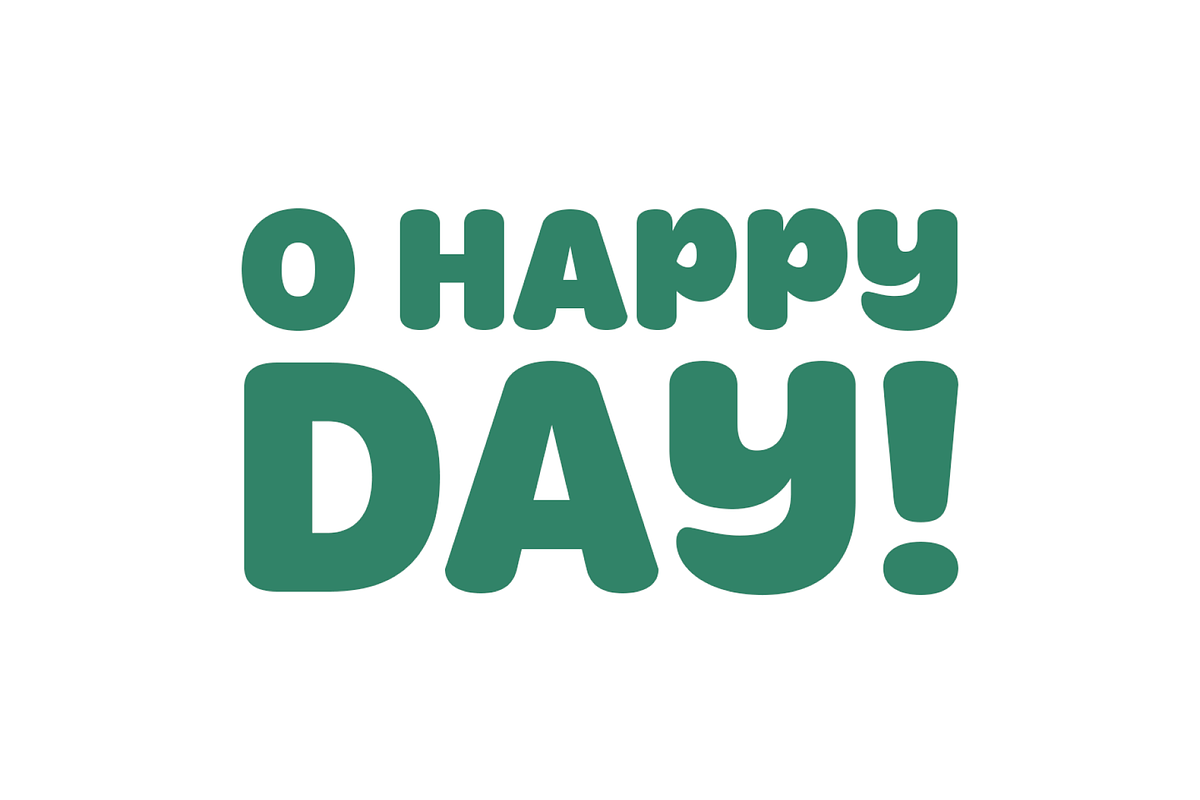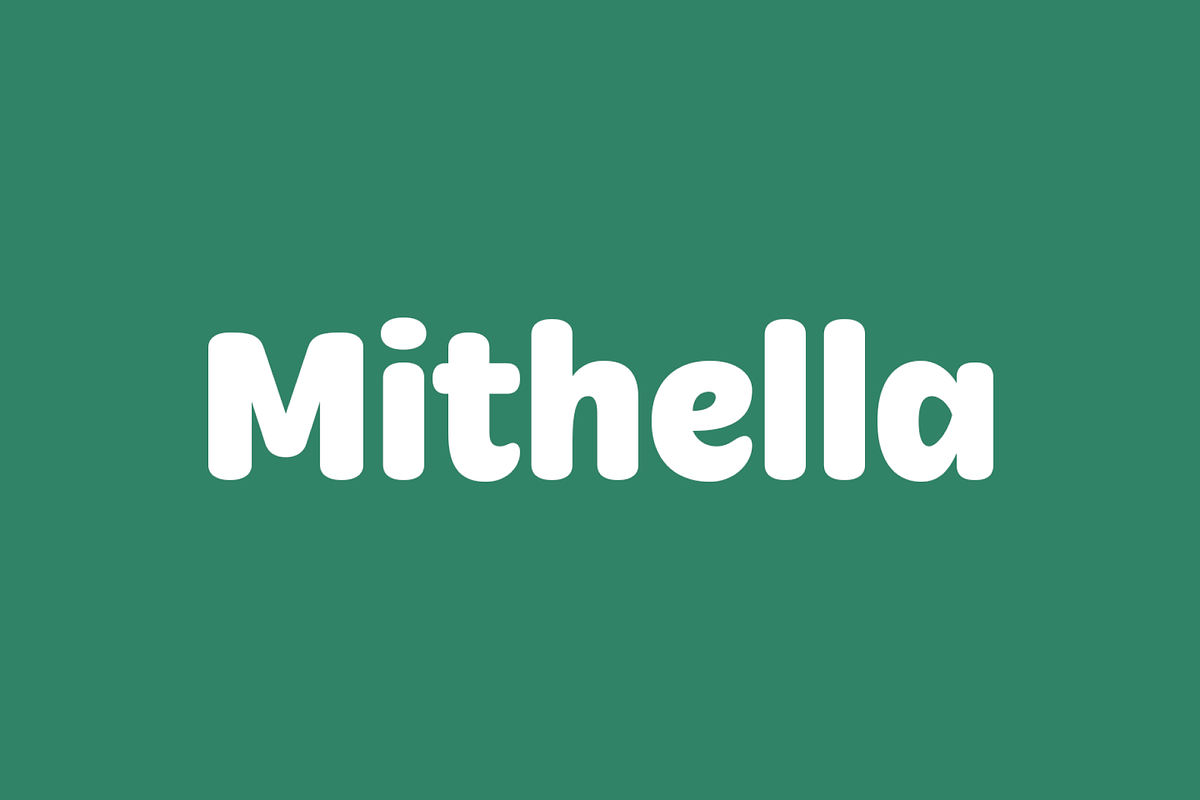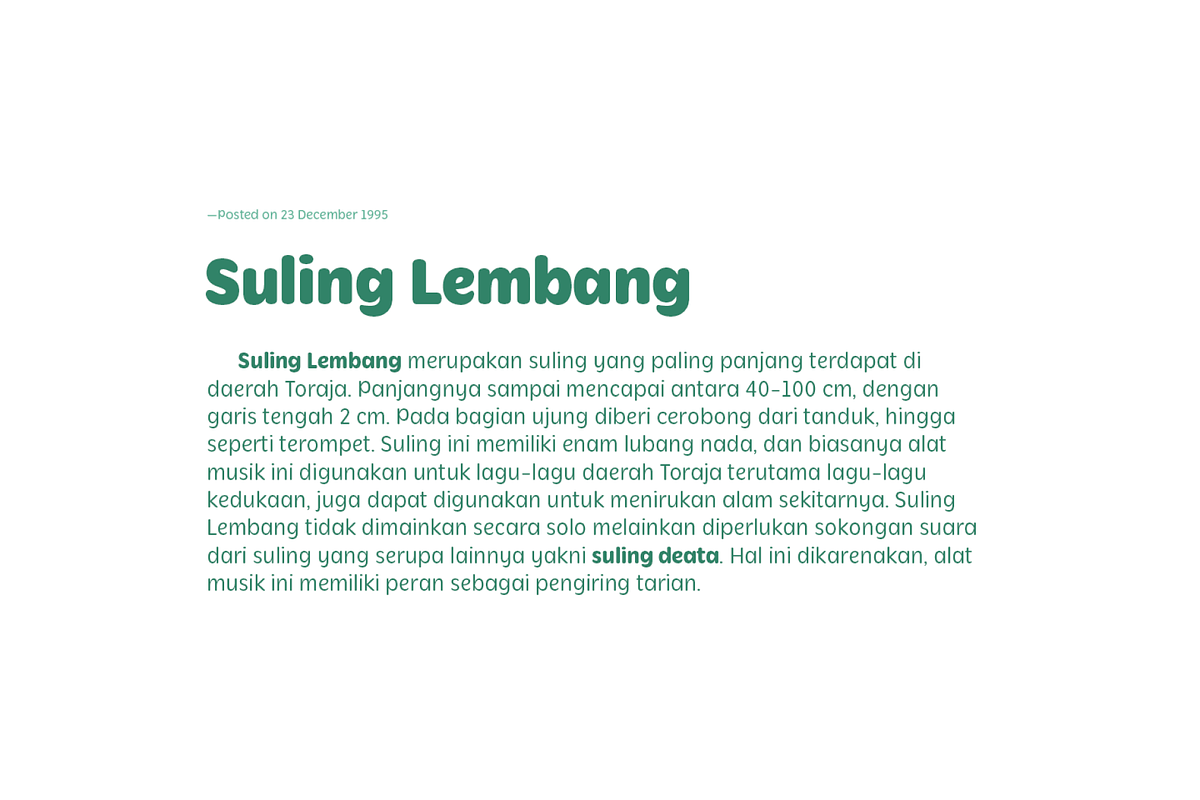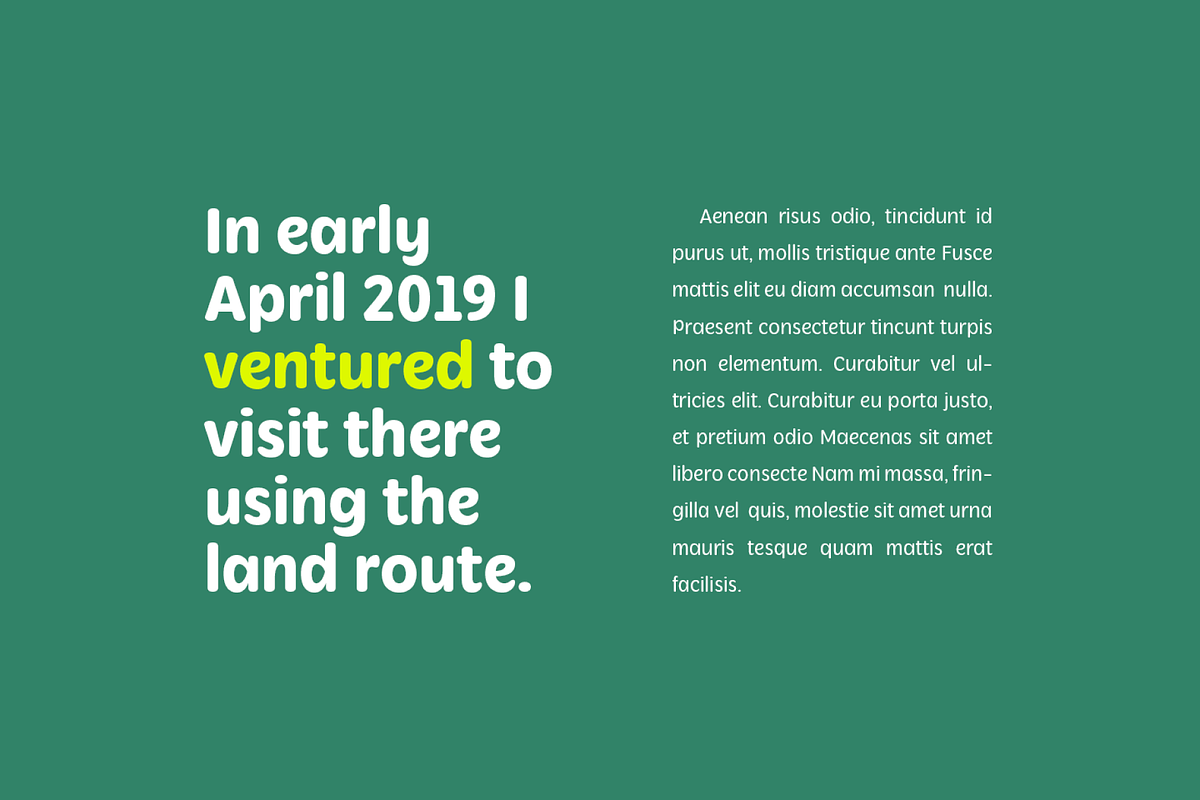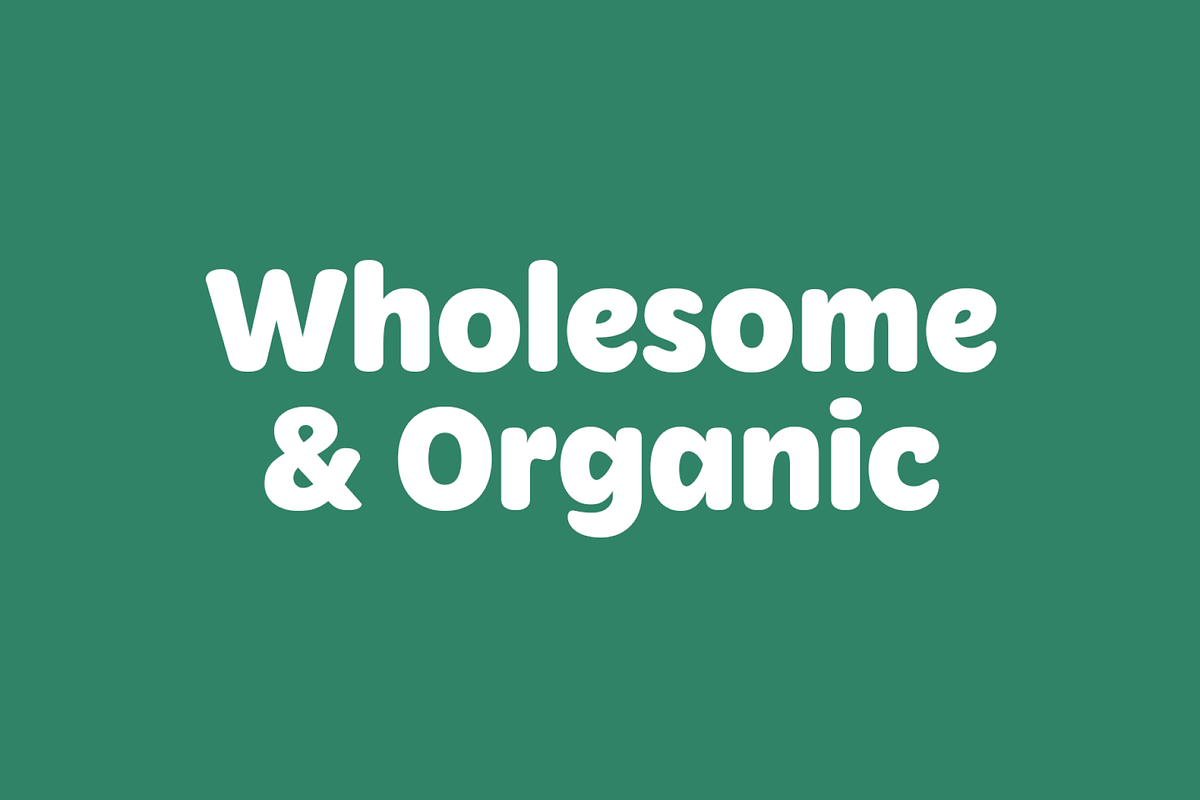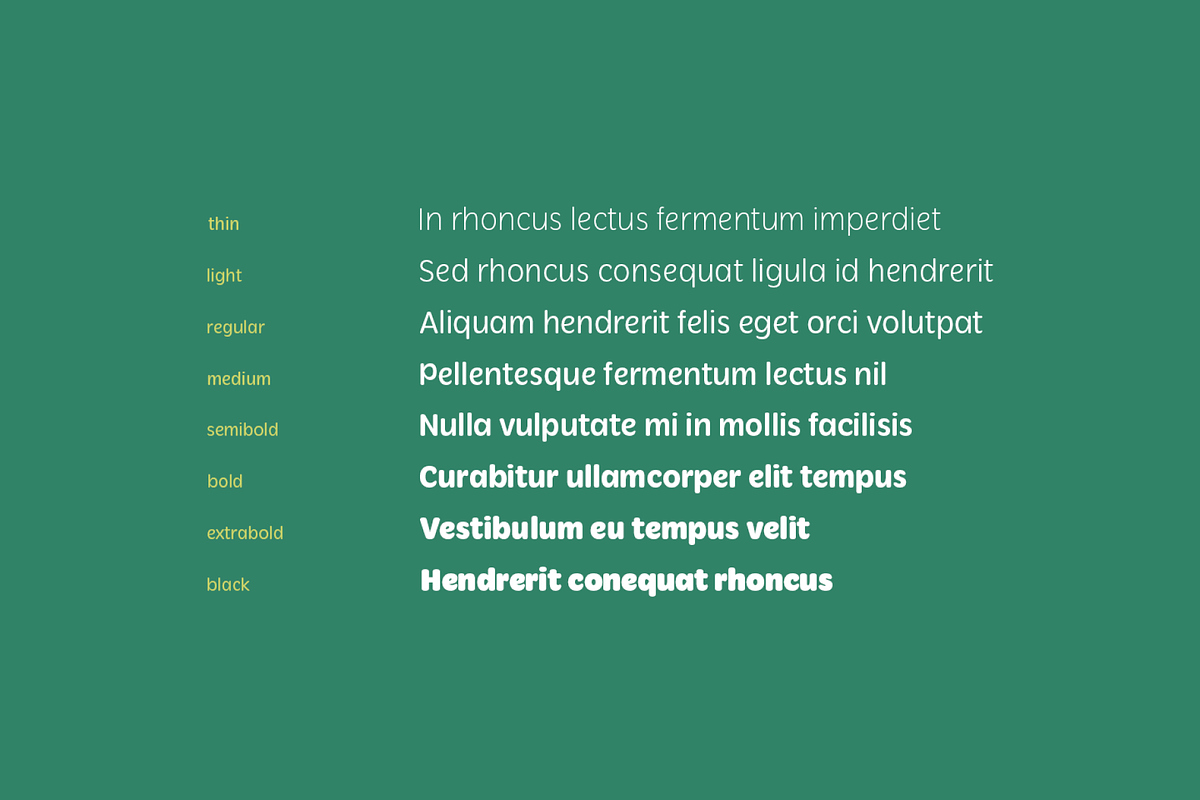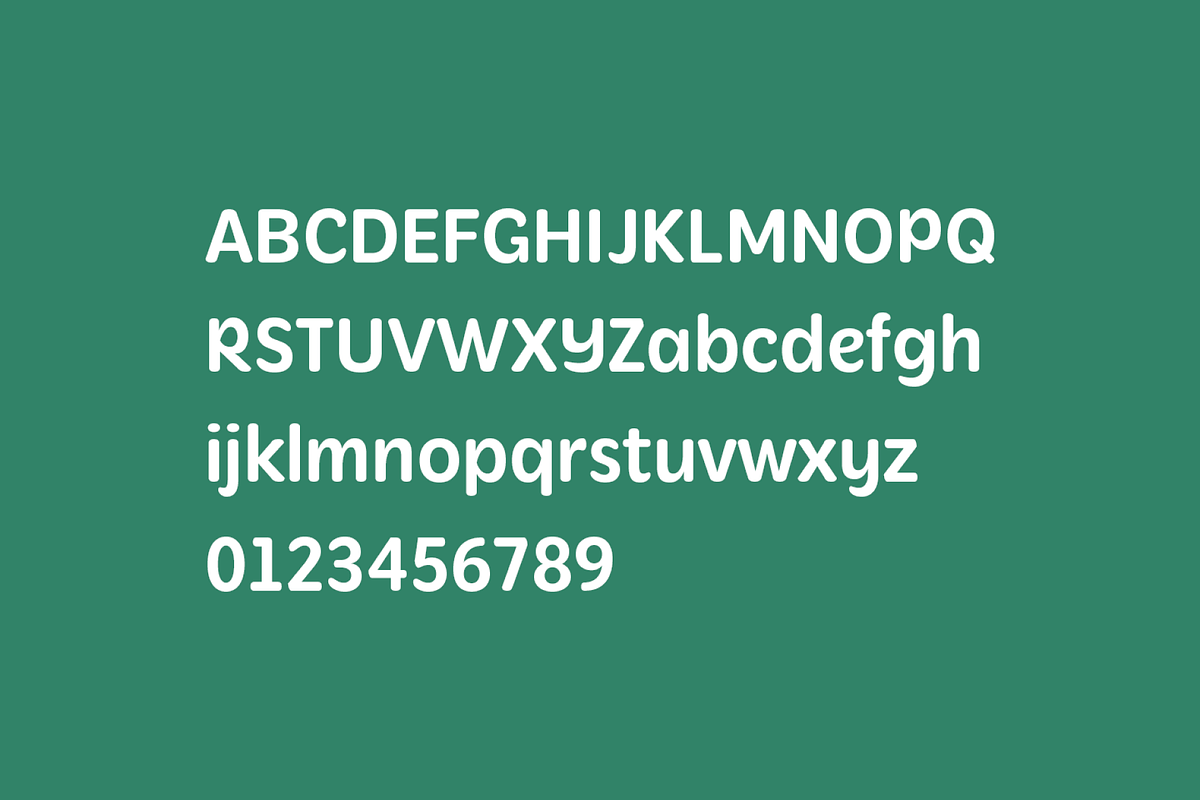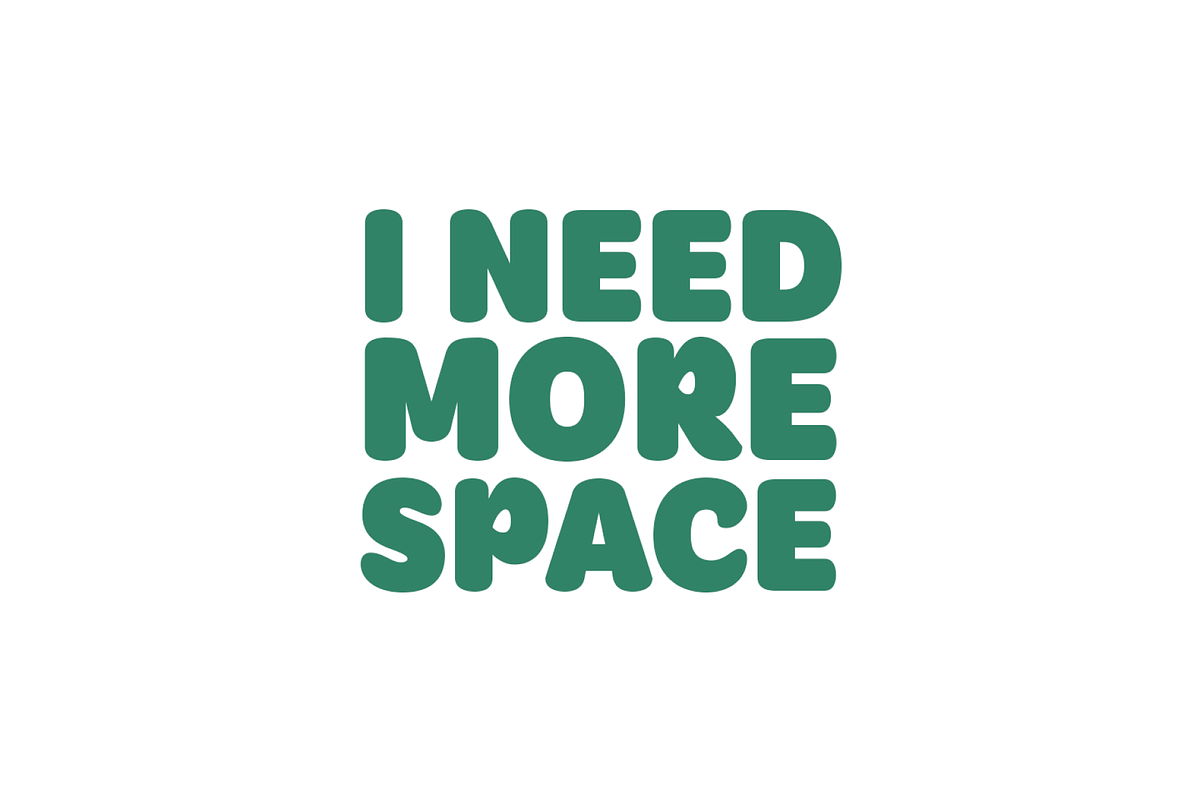
Mithella
Mithella is a sans-serif family that carries a pleasant touch. While some letters, especially the linear ones, may appear similar to other rounded sans-serifs, the notable difference becomes evident in curved letters, providing a delightful impression in word sequences. Offering eight weights from thin to black, Mithella caters to diverse design requirements, whether for branding, blogging, logos, advertising, gaming, cooking, packaging, editorial and publishing, or web and screen design.